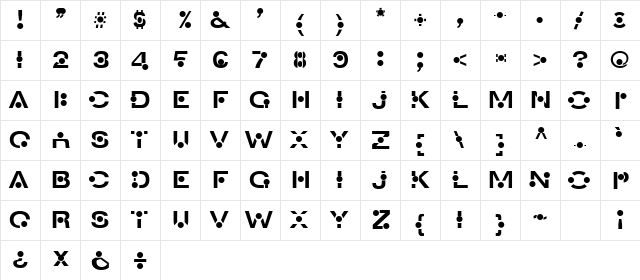
An Creon Regular
Design Context for An Creon Typeface
An Creon is a composed and adaptable typeface that performs quietly and consistently across a wide range of design contexts.